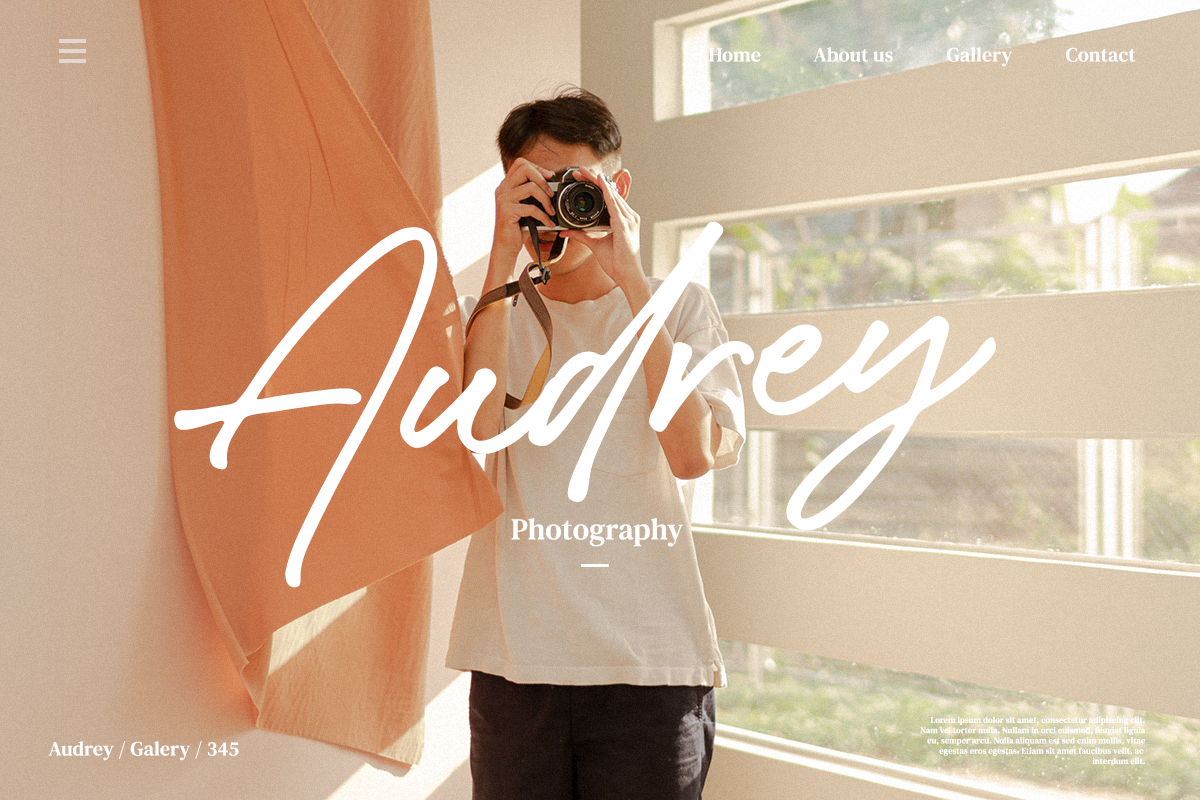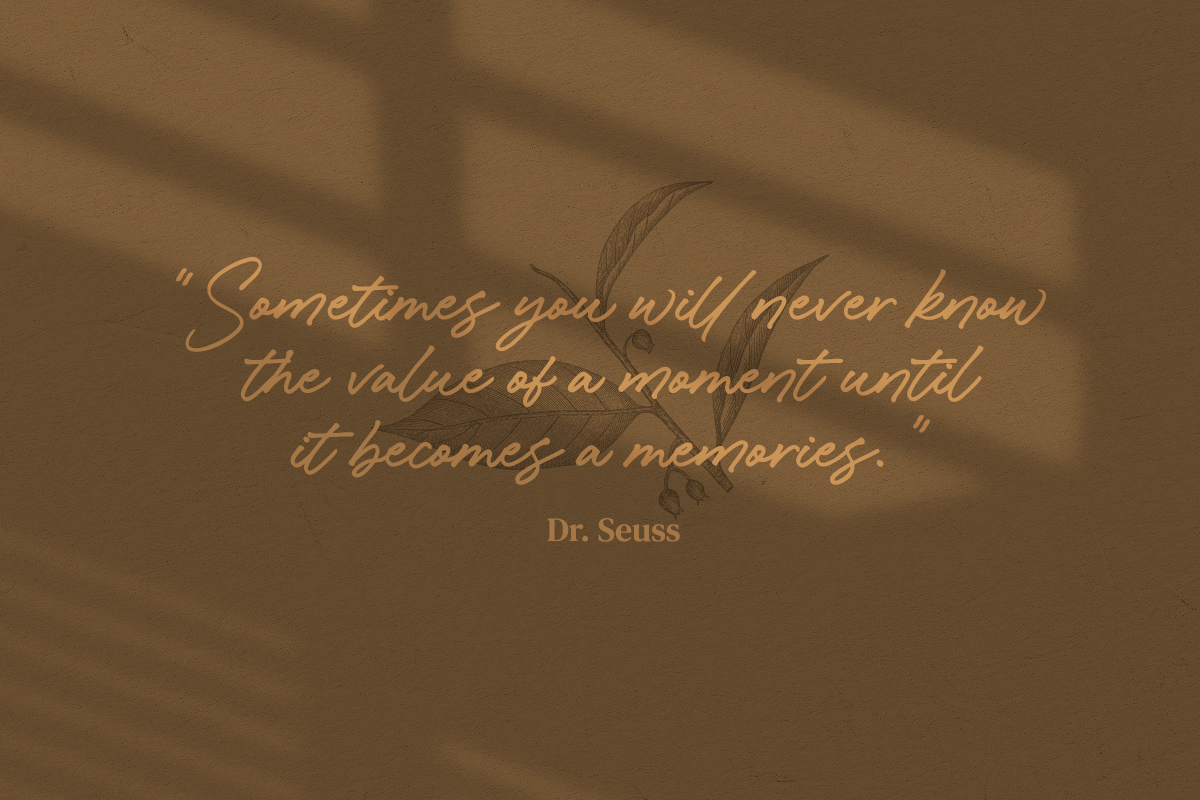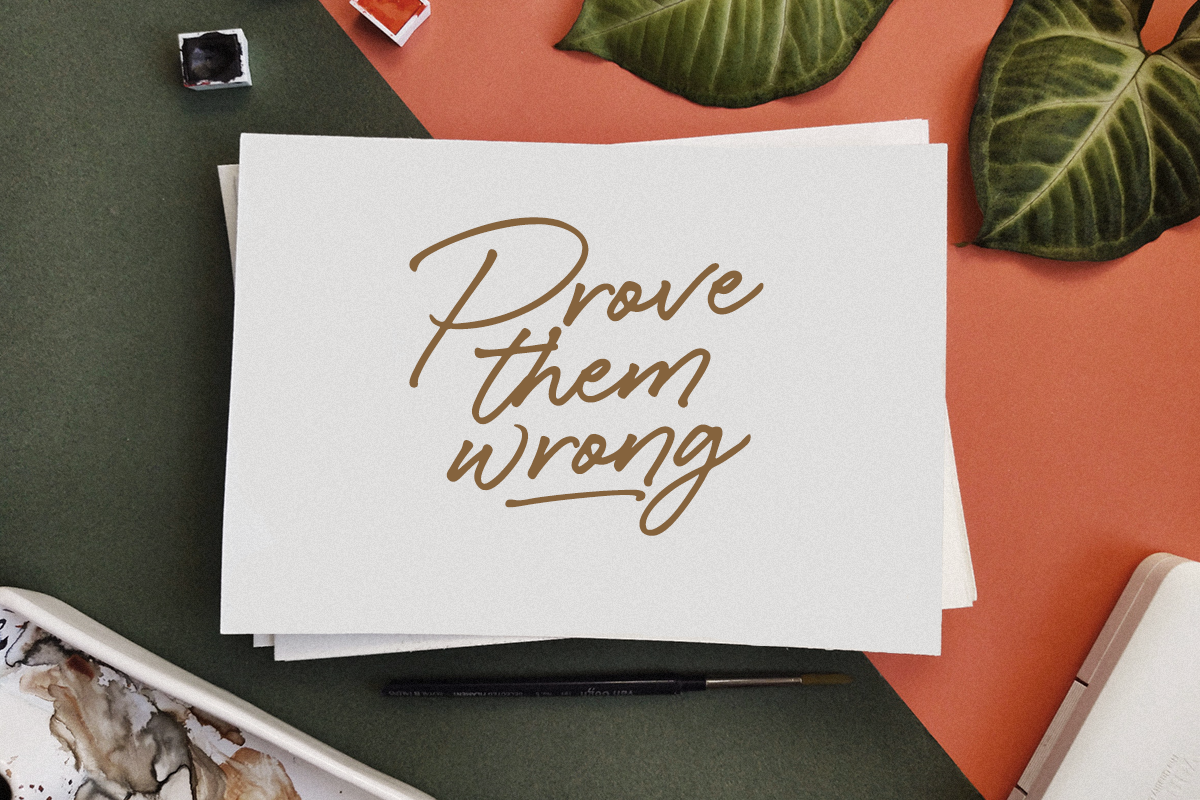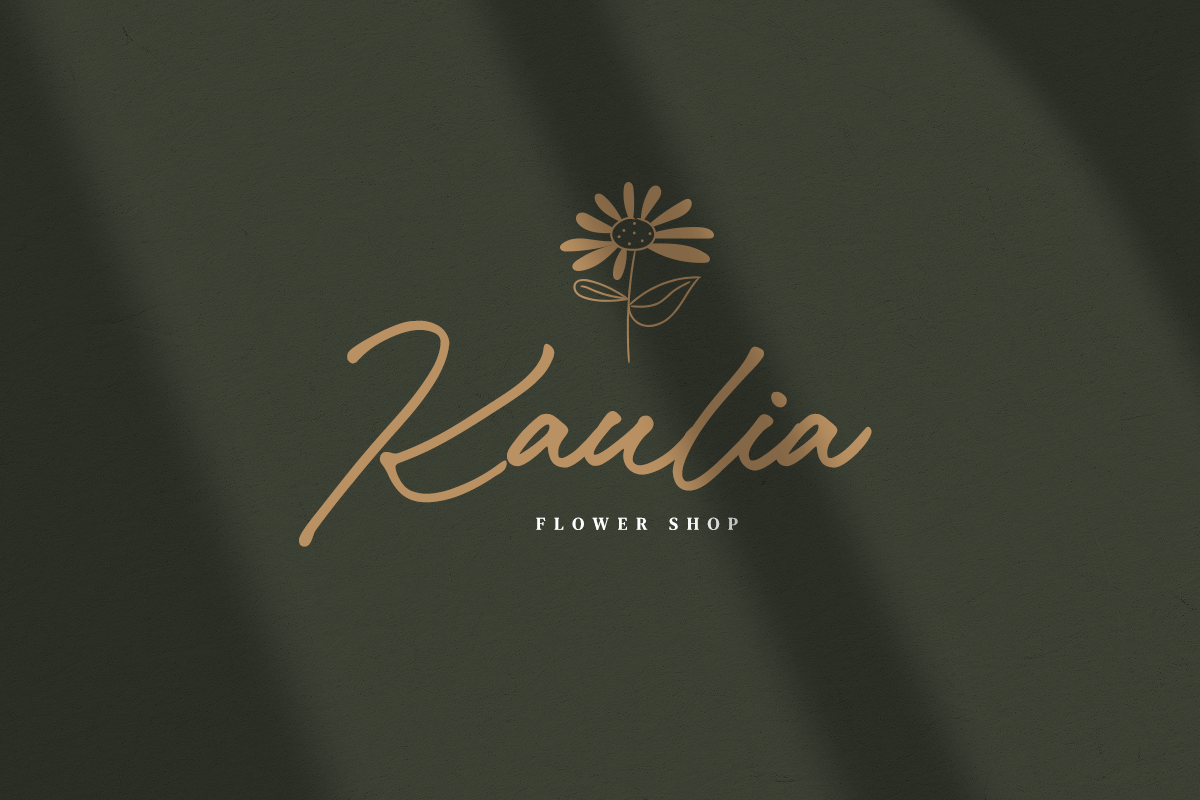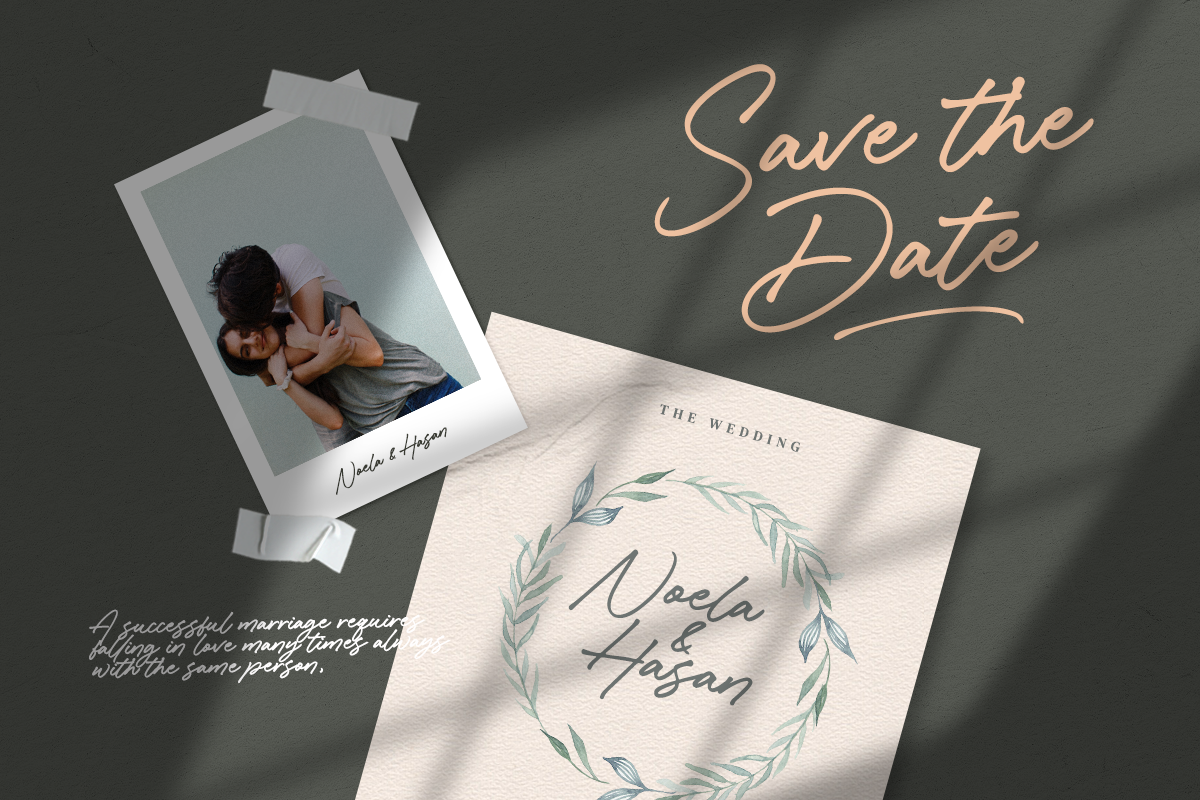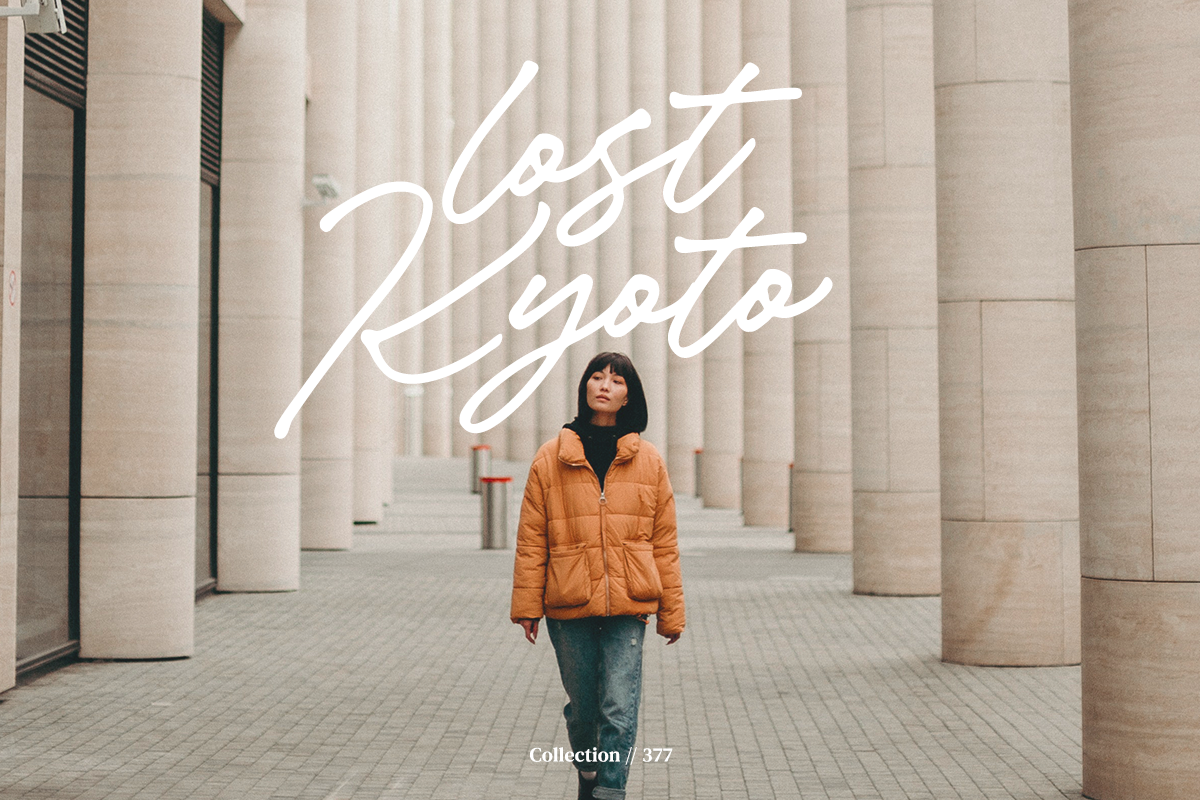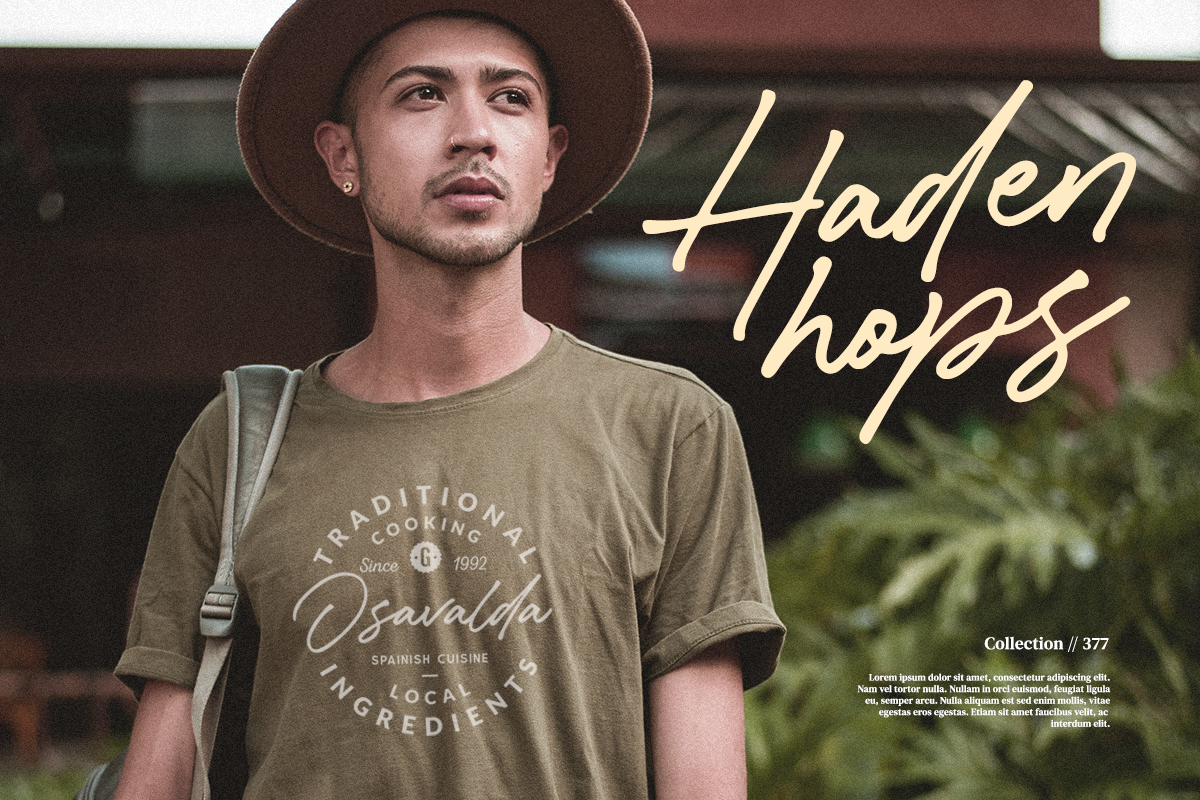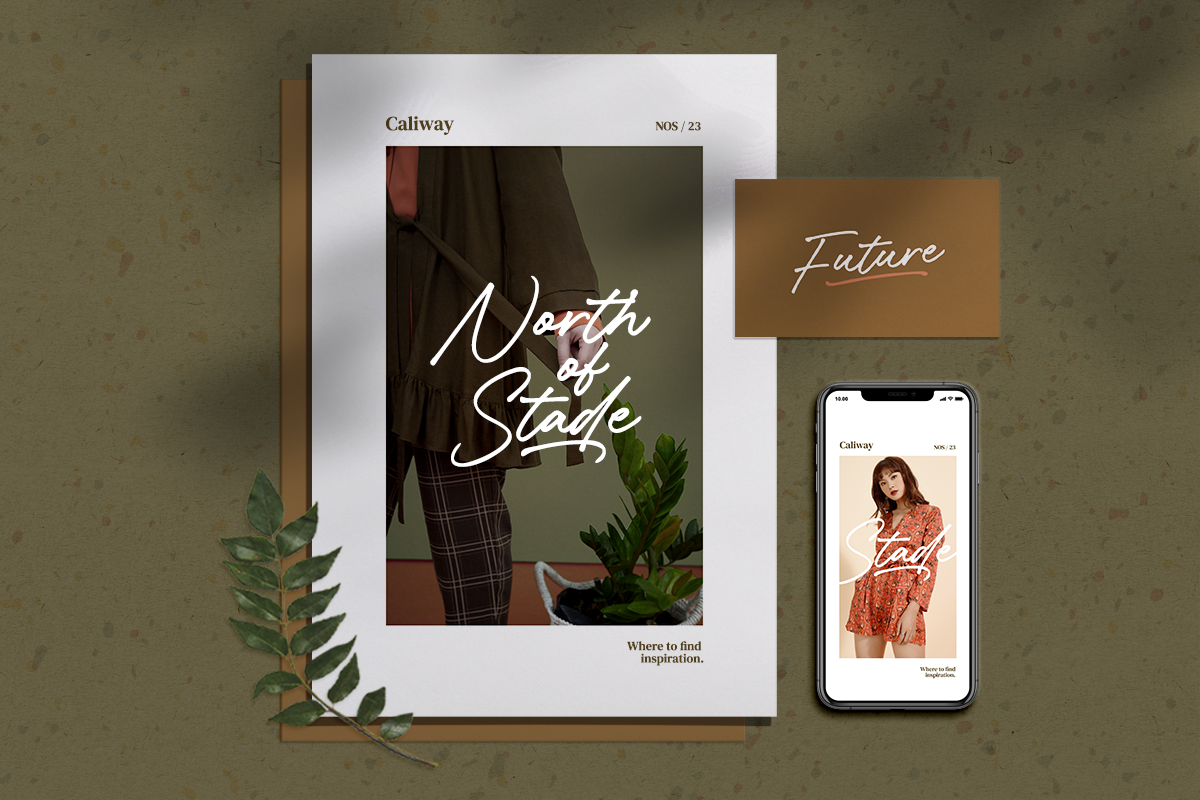
Caliway Casual Handwritten Font
Caliway brings the impression of being simple, elegant and warm. Caliway is a casual font that easily complements various types of needs such as social media, T-shirt, signature logos, branding, merch, ads, book titles, packaging, etc.
Caliway Regular: The main font with Uppercase, Lowercase, Number, Punctuation, and also multilingual support.
Caliway Alternate: Besides you can access alternative characters from the main font through the OpenType features, you can also install this alternative fonts. Caliway Alternate will give you other options for a character, which of course will add a natural impression.
Caliway Swashes: A set of 10 swashes, you just have to install it, then type the letters A - J to make swashes.